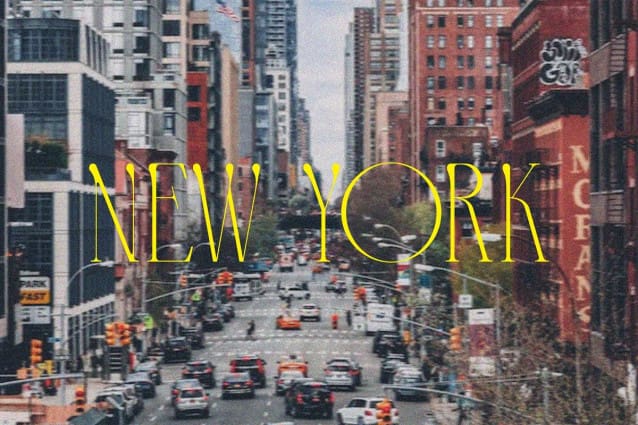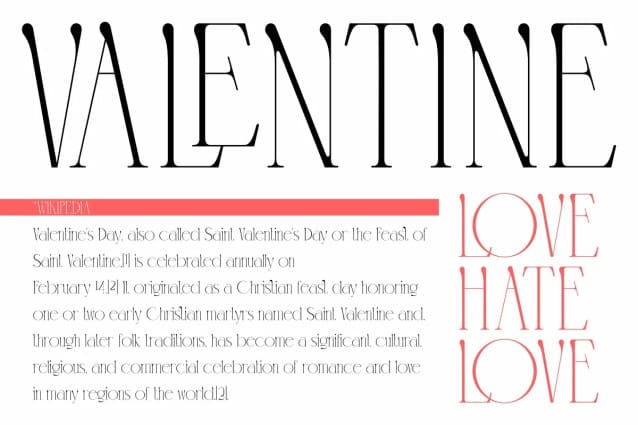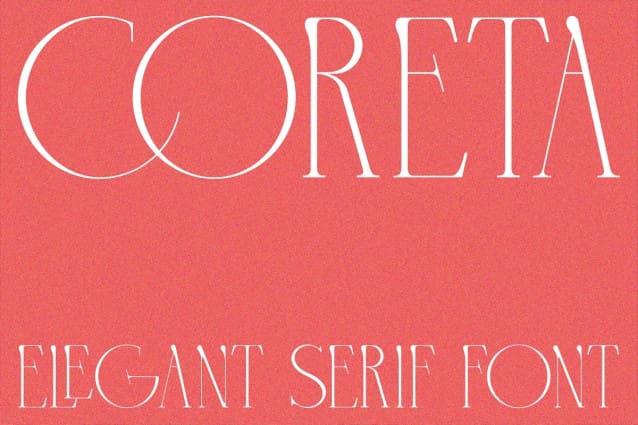
Coreta Font
Coreta Font is an elegant serif font that combines classic charm with modern flexibility. With its smooth curves, this font creates stunning visual harmony. Perfect for a variety of projects, from wedding invitations to corporate designs. Thoughtful letter proportions ensure optimal readability at any size.
Coreta Font is not just a font, it’s an impressive statement of art. With its unique capabilities, it elevates the appeal of every design with a versatile touch of elegance.